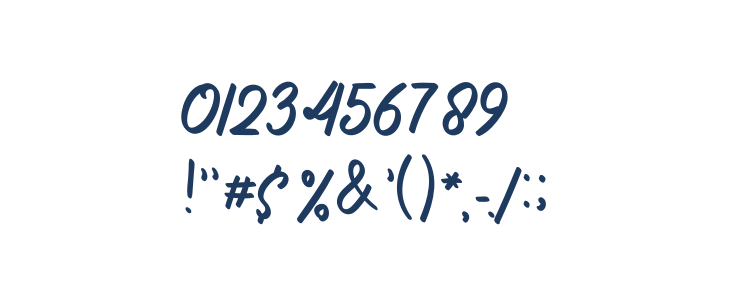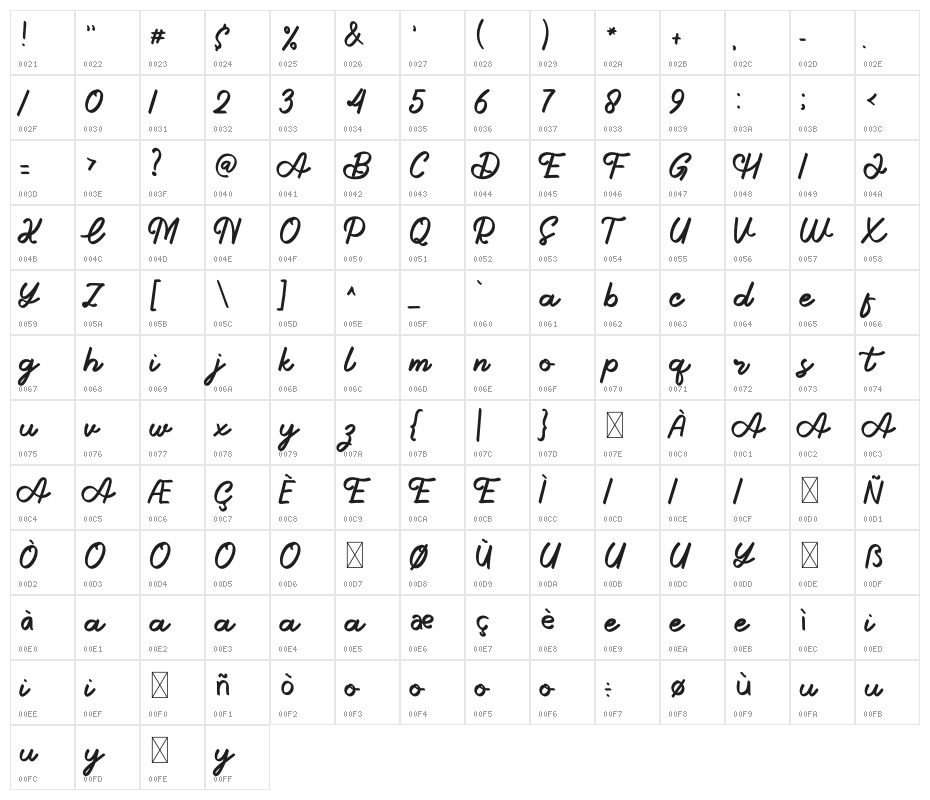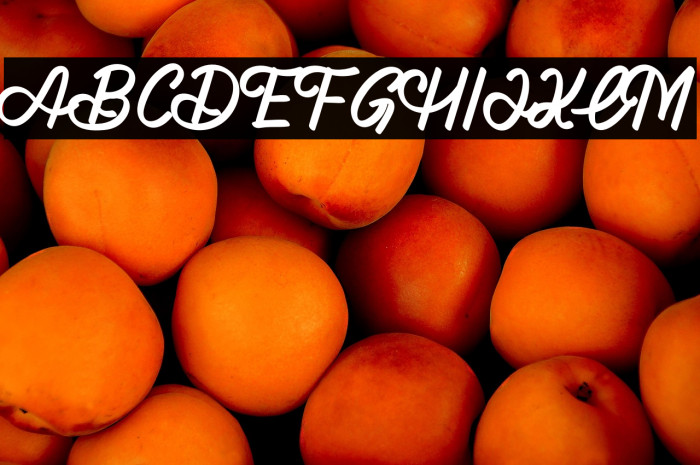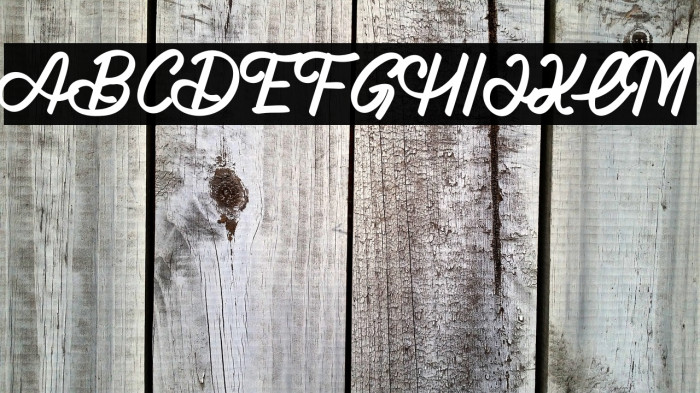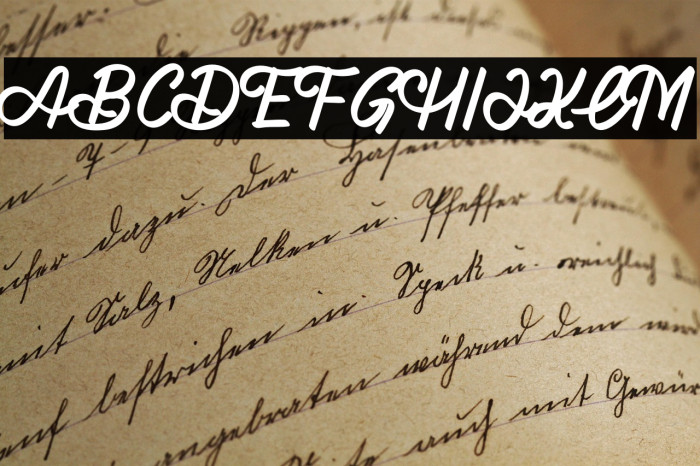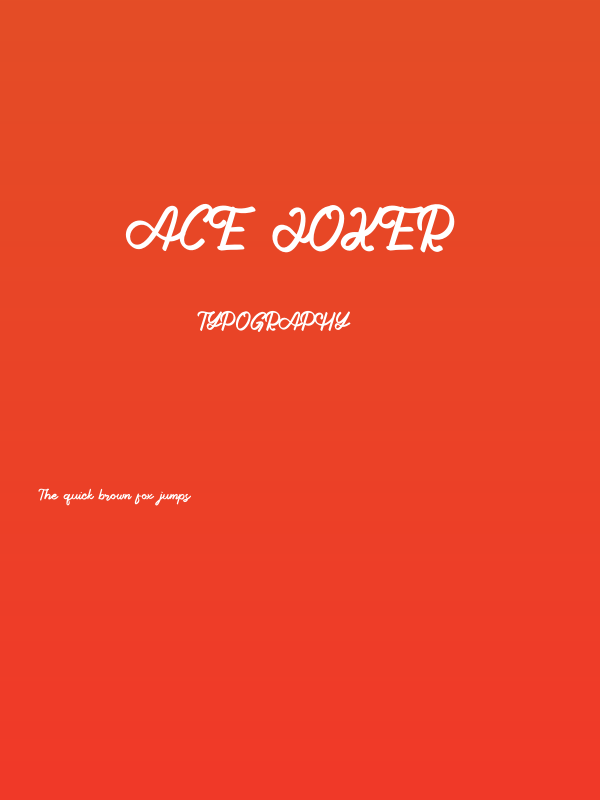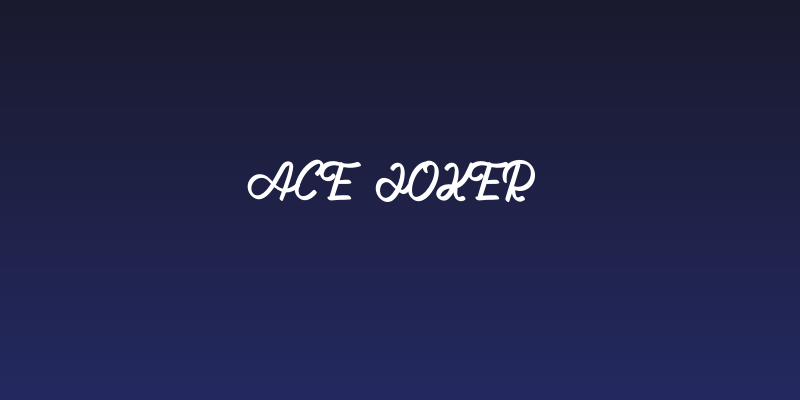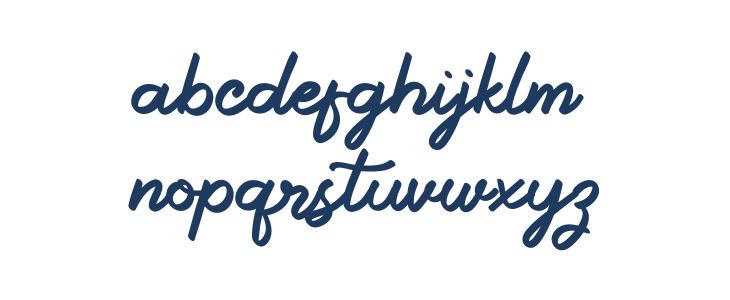
Ace Joker Font
Ace Joker Description
This font features a lively and dynamic script style with a bold presence. The characters are interconnected, giving a sense of fluidity and movement. The uppercase letters are elegantly curved, while the lowercase letters maintain a consistent flow, enhancing readability. The numerals and special characters are designed to match the overall aesthetic, with a playful yet sophisticated touch. This font is ideal for projects that require a personal and engaging feel, such as invitations, branding, and creative designs.
| Proposed Projects | Ideal for invitations, branding, creative designs, and any project needing a personal touch. |